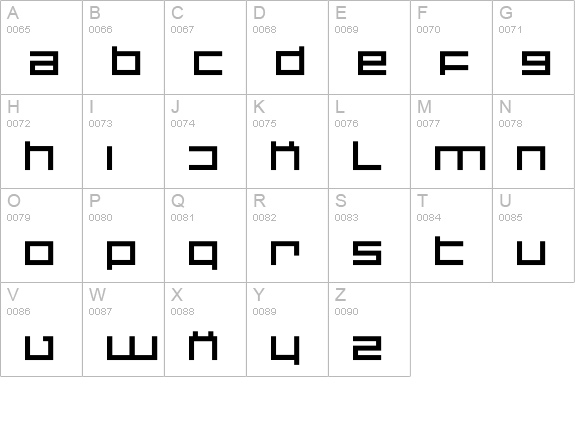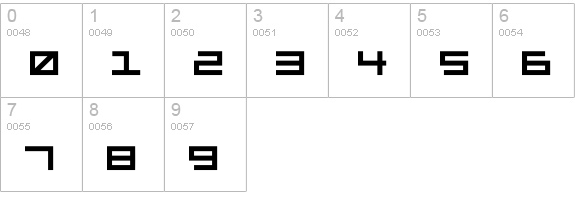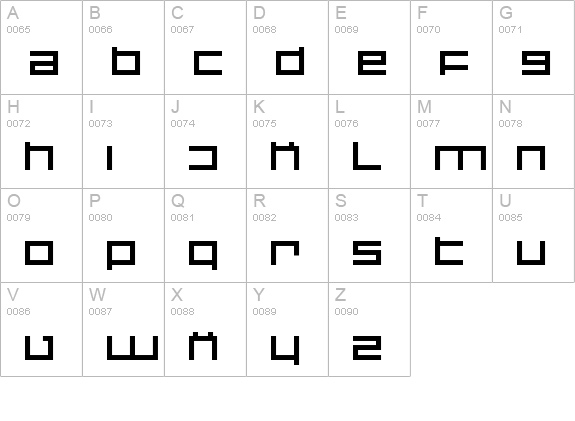
DS SQR85 Font Details
The DS SQR85 font is a sleek and modern typeface that exudes sophistication and elegance. With its clean lines and sharp angles, this font is perfect for creating a bold statement in your design projects. Whether you're working on a logo, branding materials, or a website, DS SQR85 is sure to make a lasting impression. What sets DS SQR85 apart is not just its stylish design, but also the fact that it is available for free download at FontsMarket.com. This means you can easily access this high-quality font without any cost, making it a valuable addition to your font library. Don't miss out on the opportunity to enhance your designs with the DS SQR85 font today!